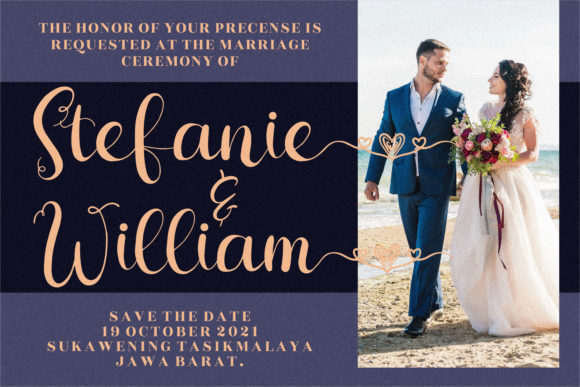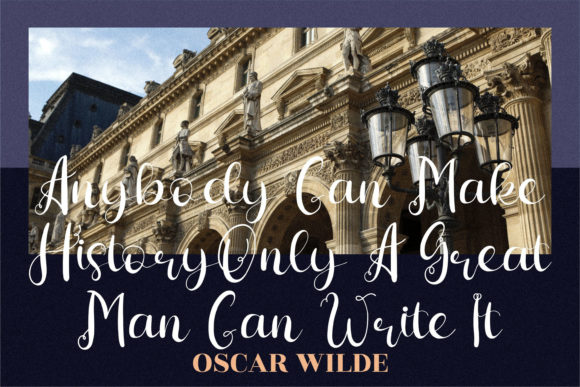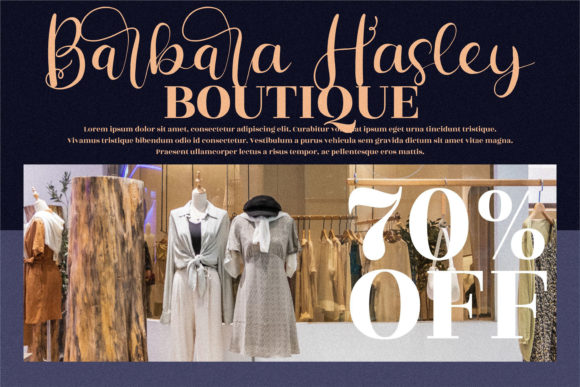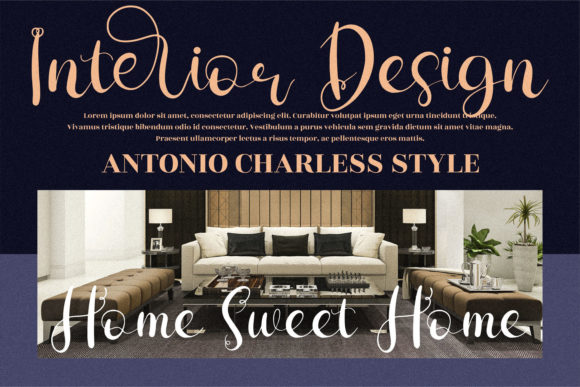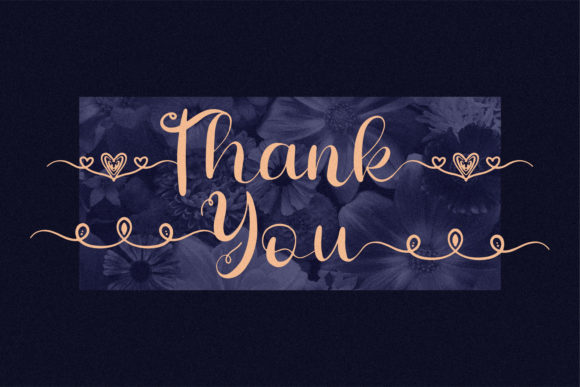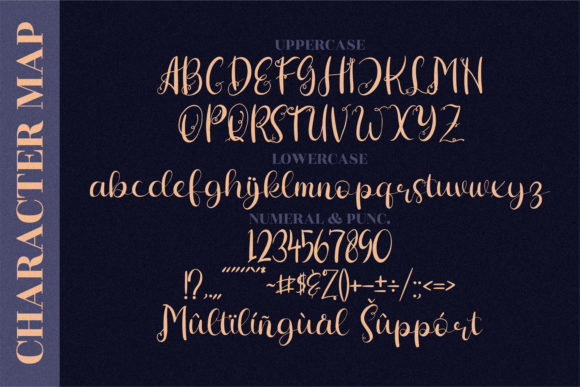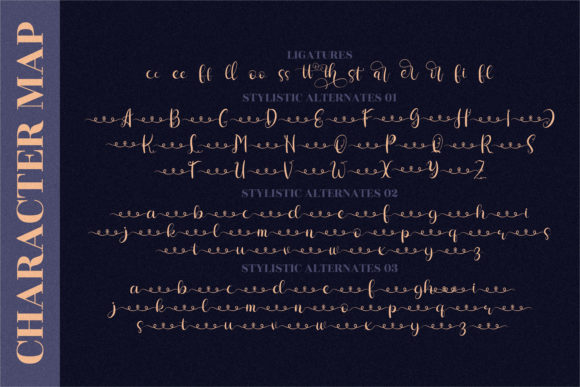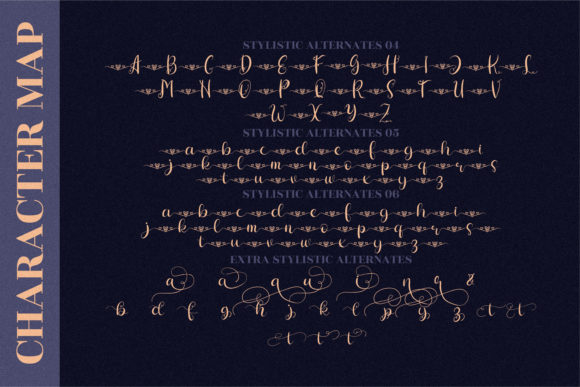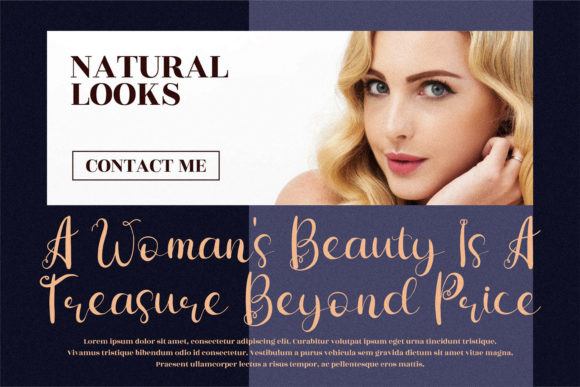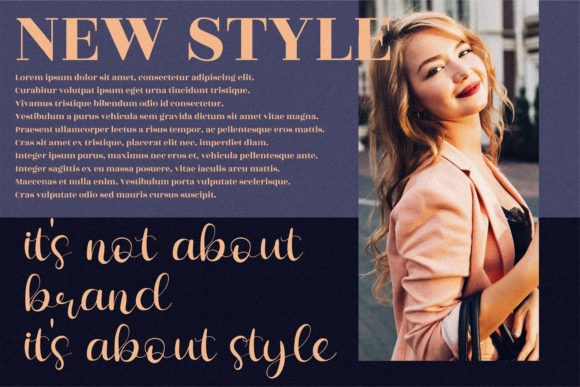
Hiratheria Font
About Hiratheria Font
Hiratheria is a stunning and elegant script font that exudes sophistication and beauty. Its carefully crafted design and intricate details make it a wonderful addition to any font library. Whether you’re working on branding, invitations, packaging, or any other creative project, Hiratheria has the potential to enhance your designs and make them truly captivating.
The font’s graceful and flowing letterforms create a sense of movement and rhythm, adding a touch of elegance to your typography. Each character is meticulously crafted with attention to detail, ensuring that every curve and swash is perfectly balanced. With its high level of detail, Hiratheria is a font that commands attention and elevates any design it is used in.
One of the standout features of Hiratheria is its versatility. It can be adapted to various design styles and themes, from luxurious and formal to romantic and whimsical. This flexibility allows you to use Hiratheria in a wide range of projects, unleashing its potential to enhance your creations in countless ways.
With the font’s PUA encoding, accessing all the glyphs and swashes is made easy. This means you can effortlessly customize and embellish your text, adding even more personality and flair to your designs. The extensive glyph library gives you plenty of options to play with, allowing you to create unique and eye-catching compositions.
Whether you’re designing a logo, a wedding invitation, a quote graphic, or any other creative piece, Hiratheria will bring a touch of elegance and refinement to your work. Its neat craftsmanship and attention to detail ensure that every character shines, making your designs truly stand out.
In summary, Hiratheria is a ravishing script font that offers a perfect balance of elegance and detail. Its versatility and potential for customization make it a valuable asset for any design project. With its PUA encoding, accessing all the glyphs and swashes is effortless, allowing you to unleash your creativity and create stunning compositions. Embrace the beauty of Hiratheria and let it enhance your designs with its exquisite charm.